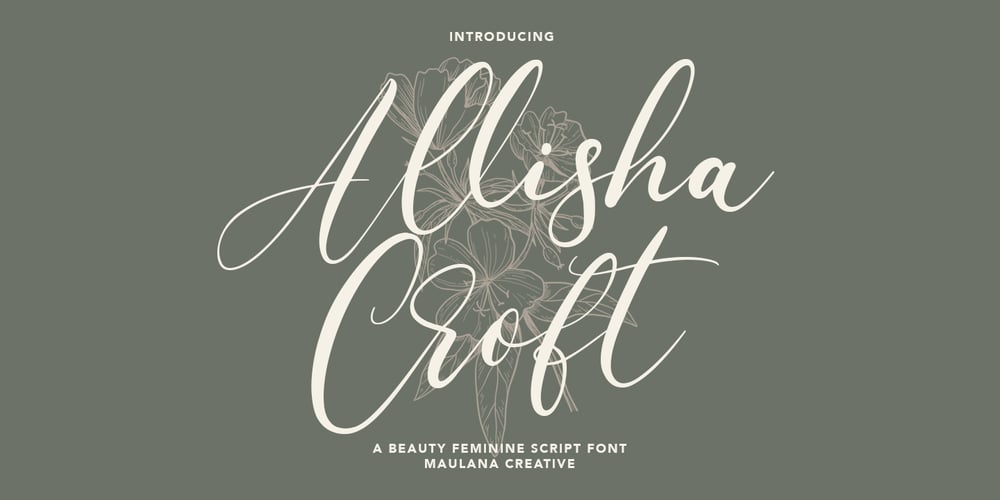
Allisha Croft
Allisha Croft font
Allisha Croft Font Family was designed by Gilang Maulana and published by Maulana Creative. Allisha Croft contains 1 styles and family package options. Allisha Croft is a beautiful feminine script font, With a high contrast stroke clean and fun characters. It has Opentype features of ligatures, makes it a perfect choice for branding and digital designs. Use this font for logos, social media, websites, blogs, instagram, social media, business cards, branding, and more! Allisha Croft font support multilingual more than 100+ language. and good pair for your secondary text font with sans or serif. Make a stunning work with Allisha Croft beautiful feminine script font. Cheers, MaulanaCreative